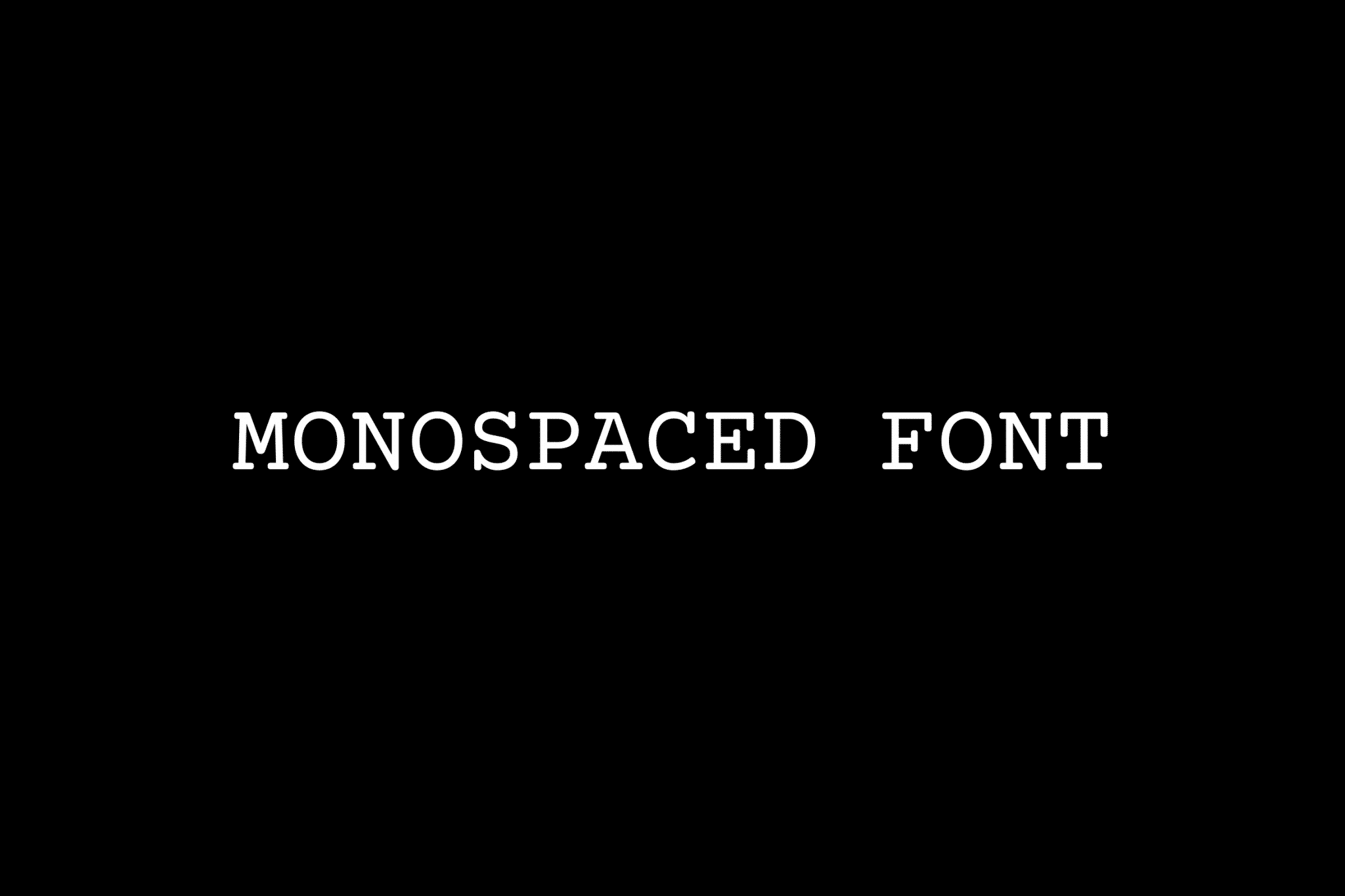
Monospaced fonts, also called fixed-pitch, fixed-width, or non-proportional fonts, monospaced fonts are unique in that all characters take up the same amount of horizontal space. Monospaced fonts ensure that the width of each character never varies, and as a result, they often look a bit more spaced or separated than the proportional fonts we’re used to.
Monospaced fonts still display variations within groups but they are easy to identify as monospaced fonts because of their fixed and consistent character width and spacing.
Monospaced fonts can be reminiscent of pages typed on a manual typewriter due to the more physical and mechanical limitations associated with typewriters. Characters on a typewriter need to take the same amount of width as each other so that with each keypress, the ribbon will move the same amount each time.
Every character in a monospaced font, including punctuation marks, is exactly the same width.
Monospaced fonts were also widely used in the early days of computers because they had limited graphic capabilities.
Advantages of monospace
Monospaced fonts aim to do something very different because they only focus on the individual characters themselves.
1. Code and Terminal
Because of this focus on individual characters, monospaced fonts have become the default font choice in products aimed at developers working with code. Many code editors and terminals use monospaced fonts exclusively. This is often because scrolling through hundreds of lines of code looking for a specific character or symbol is made much easier when monospaced fonts are used.
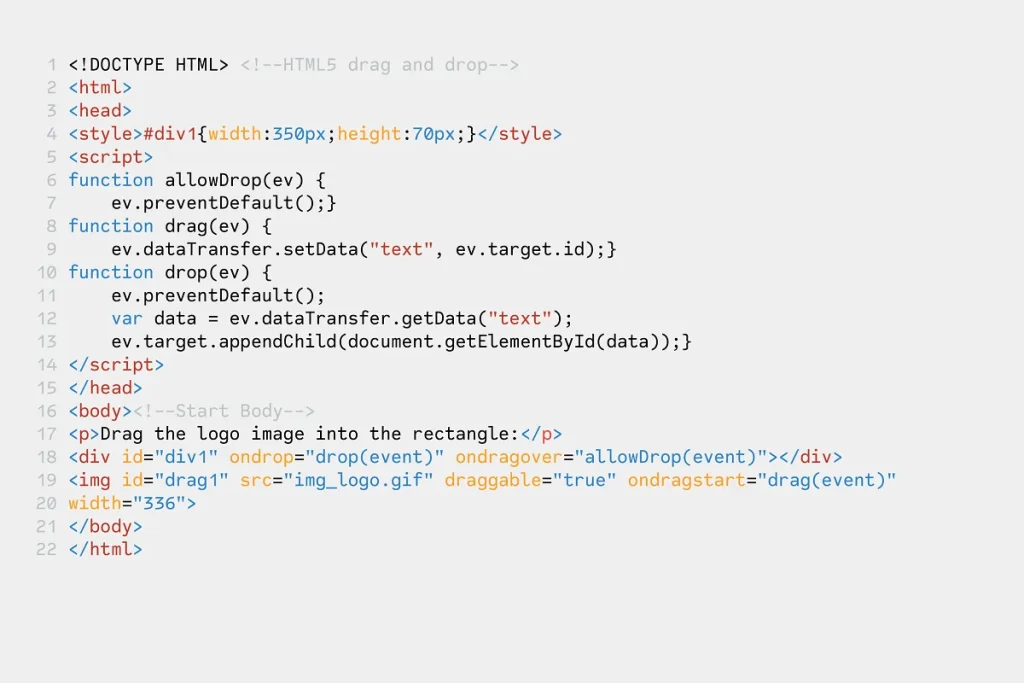
2. Numbers and Finance
Another advantage of monospaced fonts can be seen when working with numbers.
If you think of spreadsheets or financial reports where there is a need for clear, easy-to-read numbers, you will often see monospaced fonts used and fixed-width numbers tend to sit more neatly in a column-style layout.
Single-spaced numbers are also called Tabular Numbers, and they allow you to arrange numbers vertically as they are arranged in columns. This is great for yearbook financial reports or math problems.
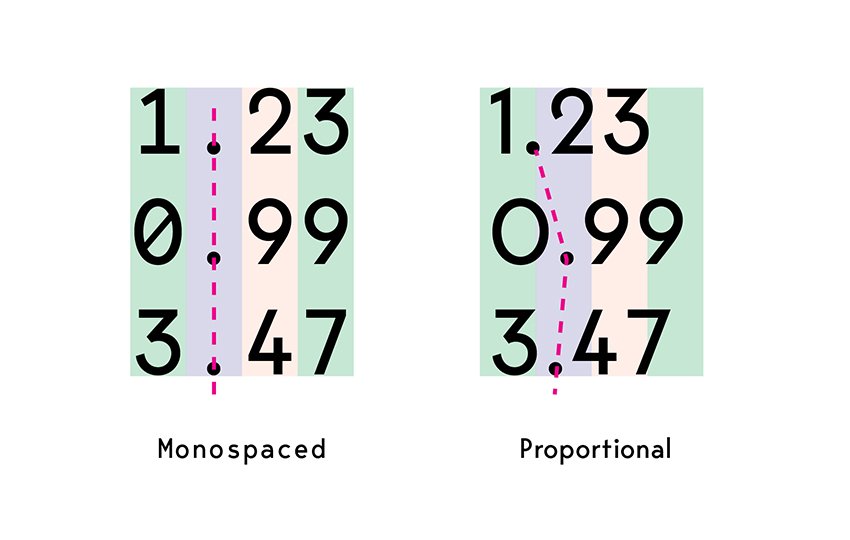
Do you see a clear difference between the two fonts above? In a monospaced font, the position of the numbers looks very neat and comfortable to look at. However, if you use a proportional font, it will be confusing and uncomfortable to look at. Therefore, the use of monospace if it is suitable for its use will be very good and even better.